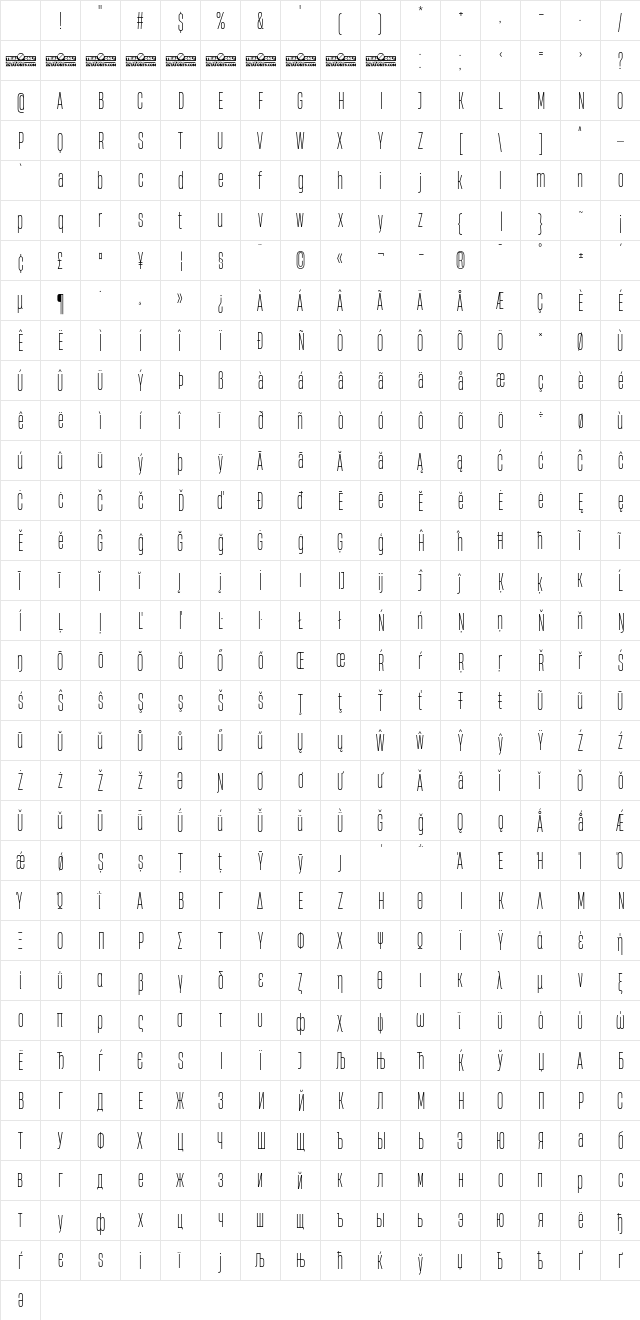
Heading Now Trial is a composed and adaptable typeface that performs quietly and consistently across a wide range of design contexts. Its slender proportions lend an understated elegance to any composition.